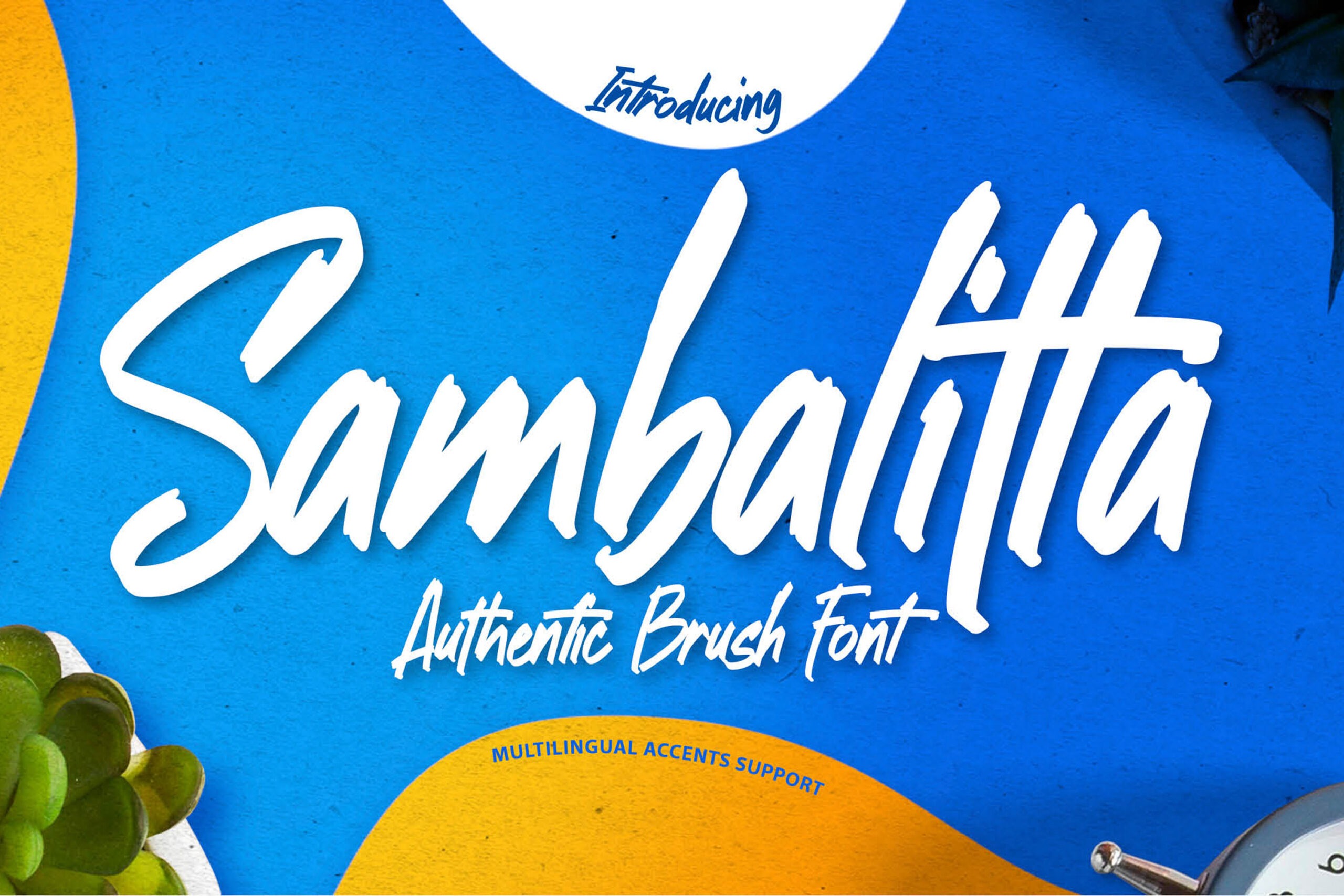
Sambalitta Font
Sambalitta Font is a premium-quality font developed to enhance your work with a polished, modern, and visually elevated look. Sambalitta – Fun Script font with a natural brush font handwritten feel. This handmade font will make your design has a beautiful natural touch for each details. It is perfect for any design project as Invitation,logo, book cover, craft or any design purposes. This font is PUA encoded which means you can access all of alternate glyphs and ligatures.